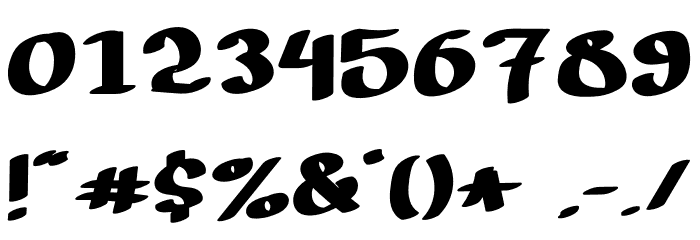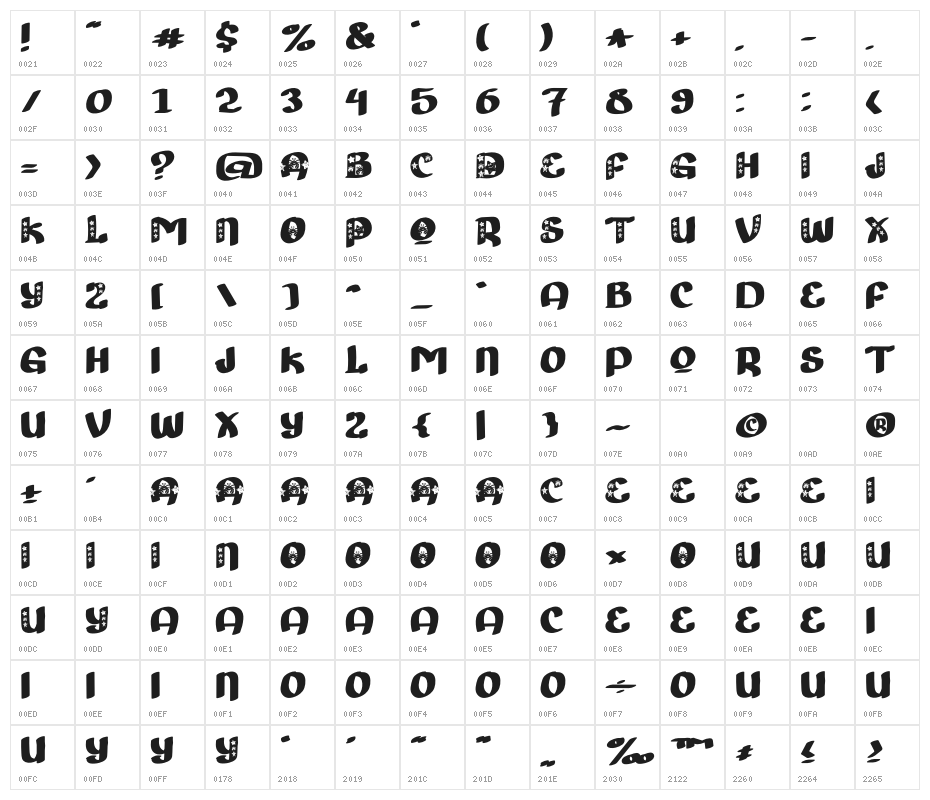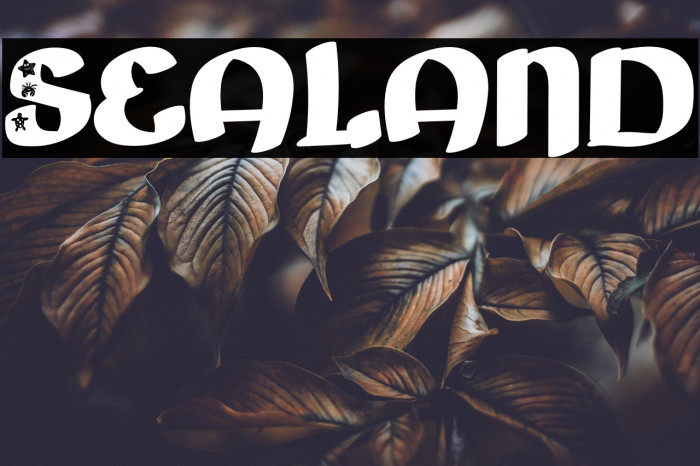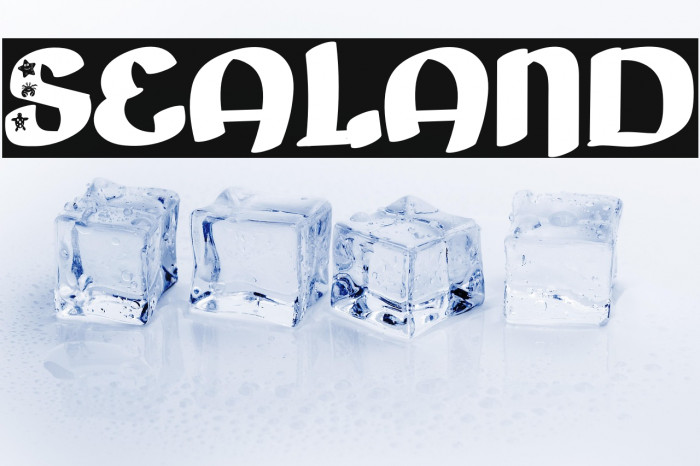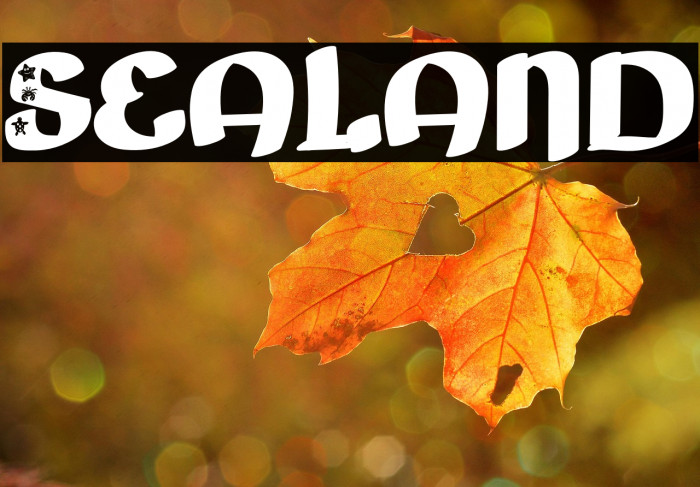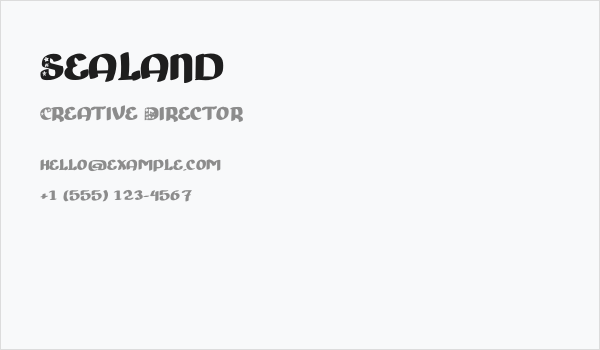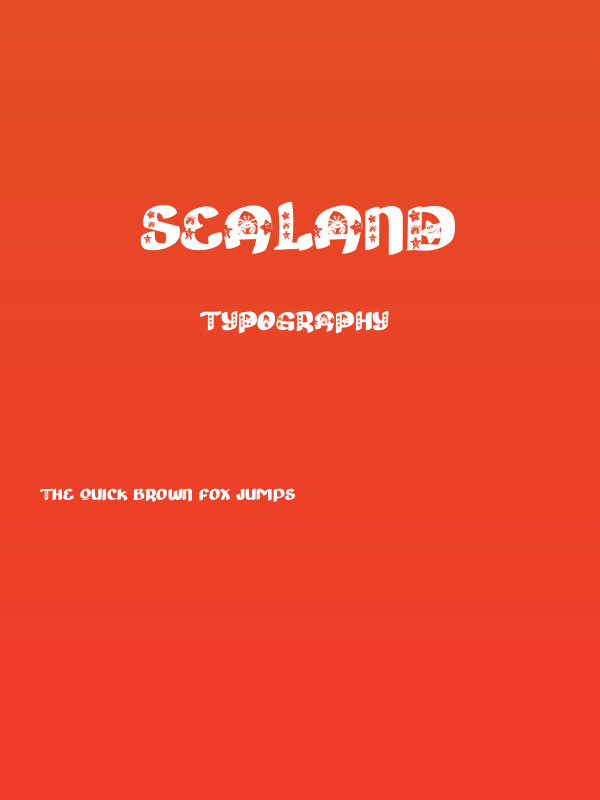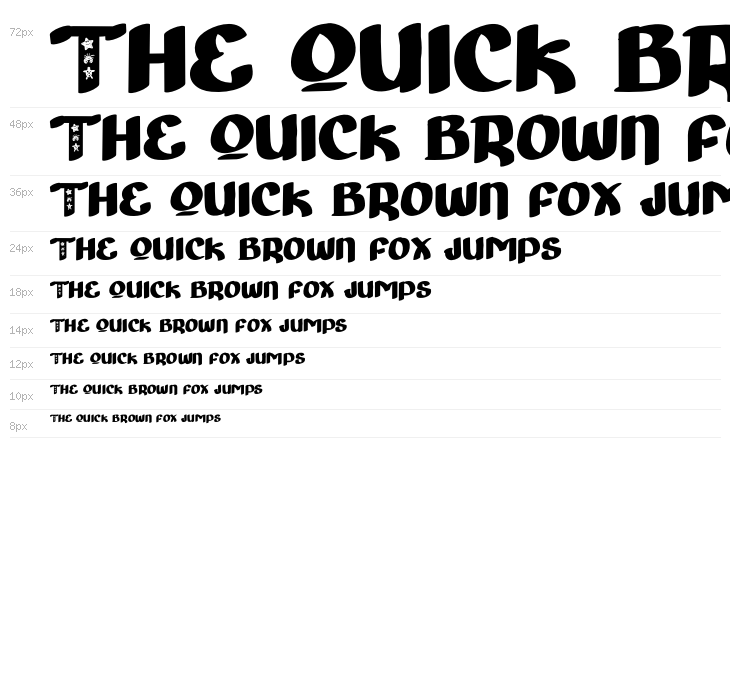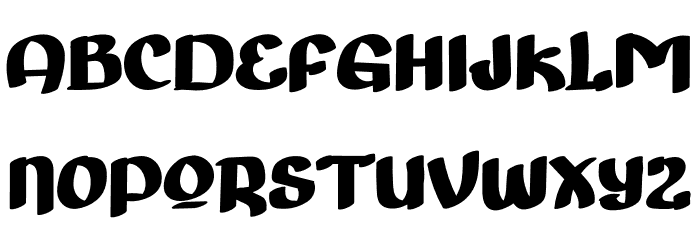
Sealand Font
Sealand Description
This font features a playful and decorative style, with uppercase letters adorned with star patterns inside each character. The lowercase and numeric characters maintain a bold and rounded appearance, offering a cohesive look throughout the set. The special characters are designed to match the boldness of the alphabet, ensuring consistency. The font's unique design makes it stand out, particularly the uppercase letters with their intricate star details, which add a whimsical touch. This font is ideal for projects that require a fun and engaging aesthetic.
| Proposed Projects | Ideal for children's books, party invitations, playful branding, and festive posters. |